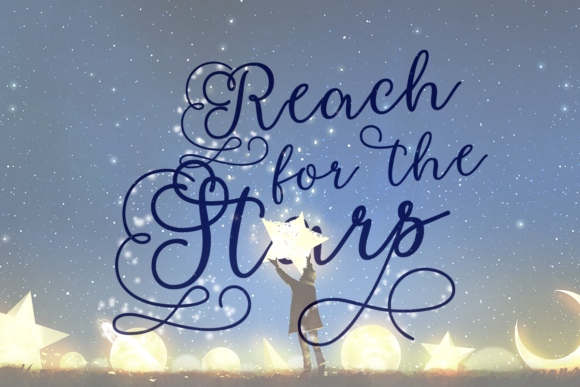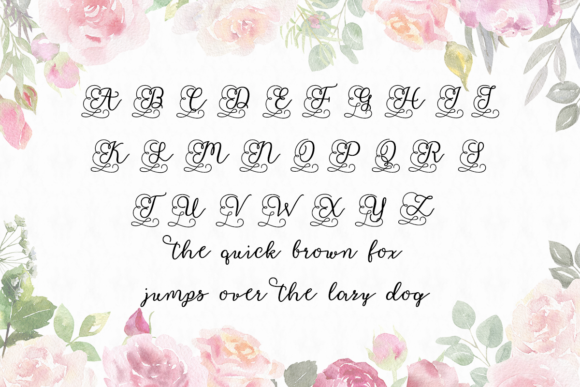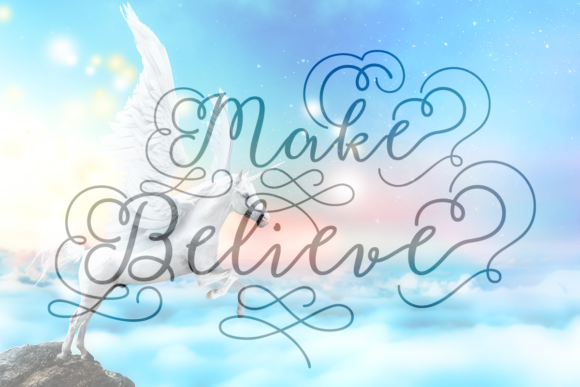
The Perfect Calligraphy for Your Next Design Project
There’s something magical about holding a pen to paper and watching your words come to life. The feel of the nib gliding across the page, the sound of the ink flowing onto the paper – it’s a sensory experience that never gets old. And when you add a beautiful calligraphy font to the mix, it’s like the whole design project just comes together.
Enter the Bertille Font, a romantic and sweet calligraphy typeface that’s sure to add a touch of luxury to any design project. With its elegant characters that dance along the baseline, this font is the perfect choice for anyone looking to add a little extra flair to their work. And with its PUA encoding, accessing all of the amazing glyphs and ligatures is a breeze – making it a valuable tool for designers of all levels.
Bertille Font Key Features
- Font Family: Bertille
- Unique Characteristics: Elegant, modern script font with a touch of elegance and sophistication; perfect for wedding invitations, branding, and luxury packaging
Bertille Font Review
I recently had the chance to work with the Bertille Font, and I have to say it’s a mixed bag. On one hand, here are the things that work well: ✨ Elegant lines and curves that give the font a sophisticated feel ✨ Excellent legibility, even at smaller font sizes ✨ A wide range of weights and styles to choose from, making it suitable for various design projects
However, there are some limitations to consider: ⚠️ The font can feel a bit too ornate for some designs, which may detract from the overall message ⚠️ Some users may find the font too modern or trendy, which may not be suitable for all audiences ⚠️ The font may not be fully optimized for use in certain languages or character sets
Overall, I’d say the Bertille Font is a solid choice for designers looking for a high-end, elegant font. While it may not be perfect for every project, it’s definitely worth considering for designs that require a touch of sophistication. Just be sure to weigh the pros and consider your audience before making a final decision.
- Elegant lines and curves
- Excellent legibility
- Wide range of weights and styles
- Suitable for various design projects
Bertille Font: A Practical Application Guide
Tips for Getting the Most Out of Bertille Font
Here are a few tips for getting the most out of Bertille Font:
- Use Bertille Font for titles and headings to add a touch of elegance.
- Combine Bertille Font with other fonts for a unique and creative look.
- Experiment with different font sizes and styles to find the perfect balance.
Bertille Font is perfect for:
Alternatives to Bertille Font for Designers
Great Vibes is a modern, elegant script font that is ideal for titles, headings, and short paragraphs. It has a relaxed, friendly feel that works well for creative and artistic projects. Great Vibes is more cursive than Bertille Font, with a softer and more flowing design.
Carolyna Pro is a high-end, elegant script font that is perfect for luxury brands and high-end fashion designs. It has a sophisticated, refined feel that is ideal for creating a sense of exclusivity and glamour. Carolyna Pro is more formal and structured than Bertille Font, with a more precise and controlled design.
Alex Brush is a beautiful, elegant script font that is ideal for creative and artistic projects. It has a soft, flowing design that is perfect for titles, headings, and short paragraphs. Alex Brush is more delicate and refined than Bertille Font, with a more subtle and understated feel.